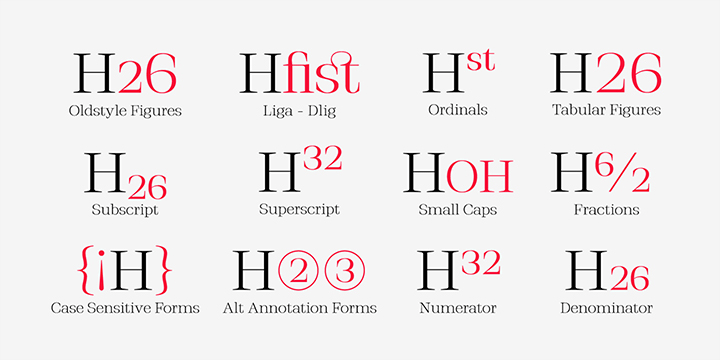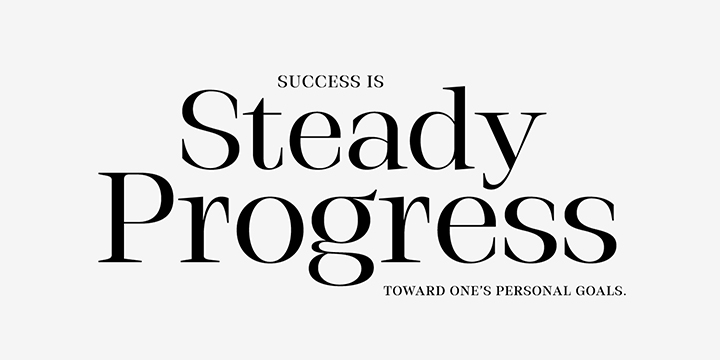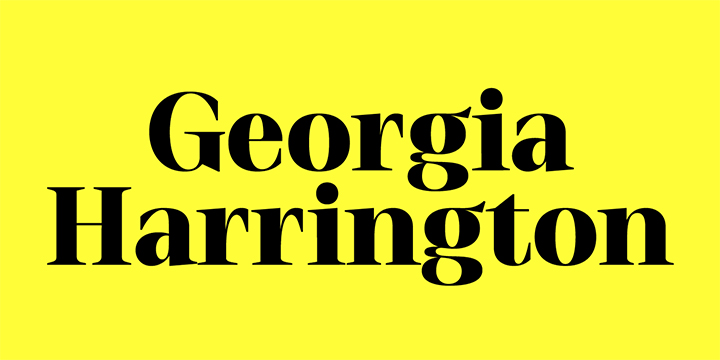
About Stigsa Display
Stigsa Display is a high-contrast typeface inspired by transitional and contemporary typefaces. A vertical stress with sharp serifs, delicate and legible. Stigsa Display family consist of 35 fonts: 7 weigths and 5 widths. With 1143 glyphs each. Stigsa…